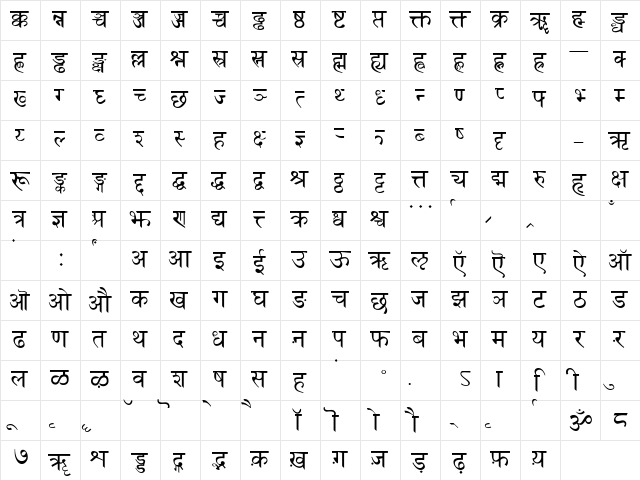
Sanskrit Regular
Design Context for Sanskrit Typeface
Sanskrit is a composed and adaptable typeface that performs quietly and consistently across a wide range of design contexts.